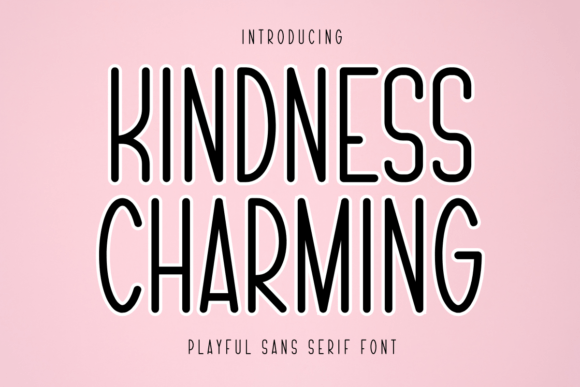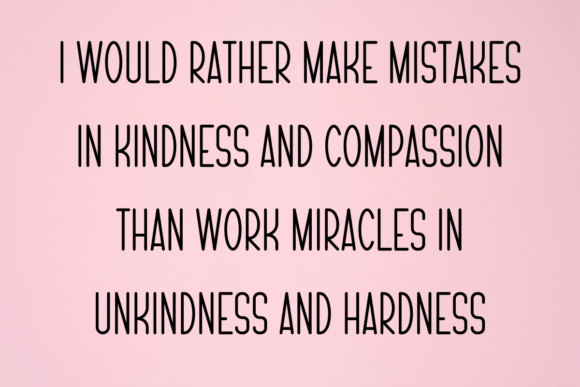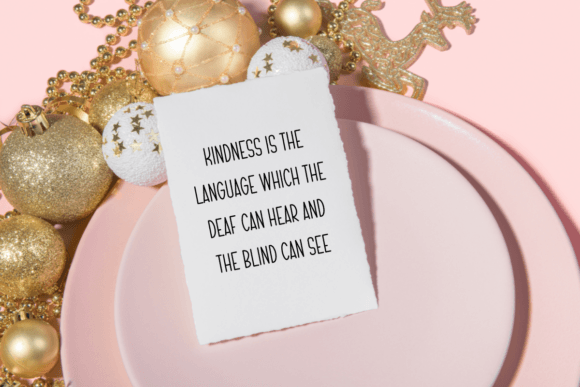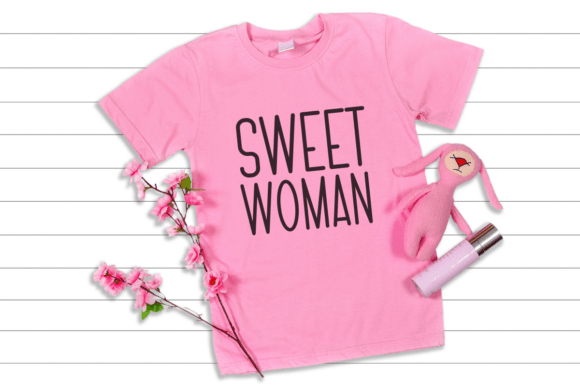
Kindness Charming Font: A Playful Sans Serif for Social Media Design
About the Kindness Charming Font
The wait is over! The incredible Kindness Charming Font is now available for your design toolkit. Kindness Charming is a playful sans-serif font with a friendly and approachable style. Its elongated, narrow letters add a modern twist while maintaining readability. Perfect for designs centered around positivity and kindness, this font is versatile for social media graphics, posters, apparel, and branding projects aiming for a gentle, welcoming vibe. Use Kindness Charming to create heartwarming messages that radiate warmth and sincerity.
Kindness Charming’s playful yet legible nature makes it ideal for headlines, short-form text in branding materials, and eye-catching posters. It also works well on packaging for products emphasizing approachability and warmth. However, its elongated letterforms may hinder readability in body text or UI elements requiring extensive text blocks.
The font’s friendly personality pairs well with clean sans-serifs like Lato or Open Sans for a balanced look, or a more structured serif like Merriweather for contrast. A touch of playful script, such as Great Vibes, could add an extra layer of charm to certain projects, but should be used sparingly.
Its core personality is undeniably friendly and approachable, making it a great choice for brands focused on community, children’s products, or anything needing a soft, welcoming feel. Avoid using it where a more serious or formal tone is required.
Kindness Charming Font Usage Examples
Kindness Charming Font Example